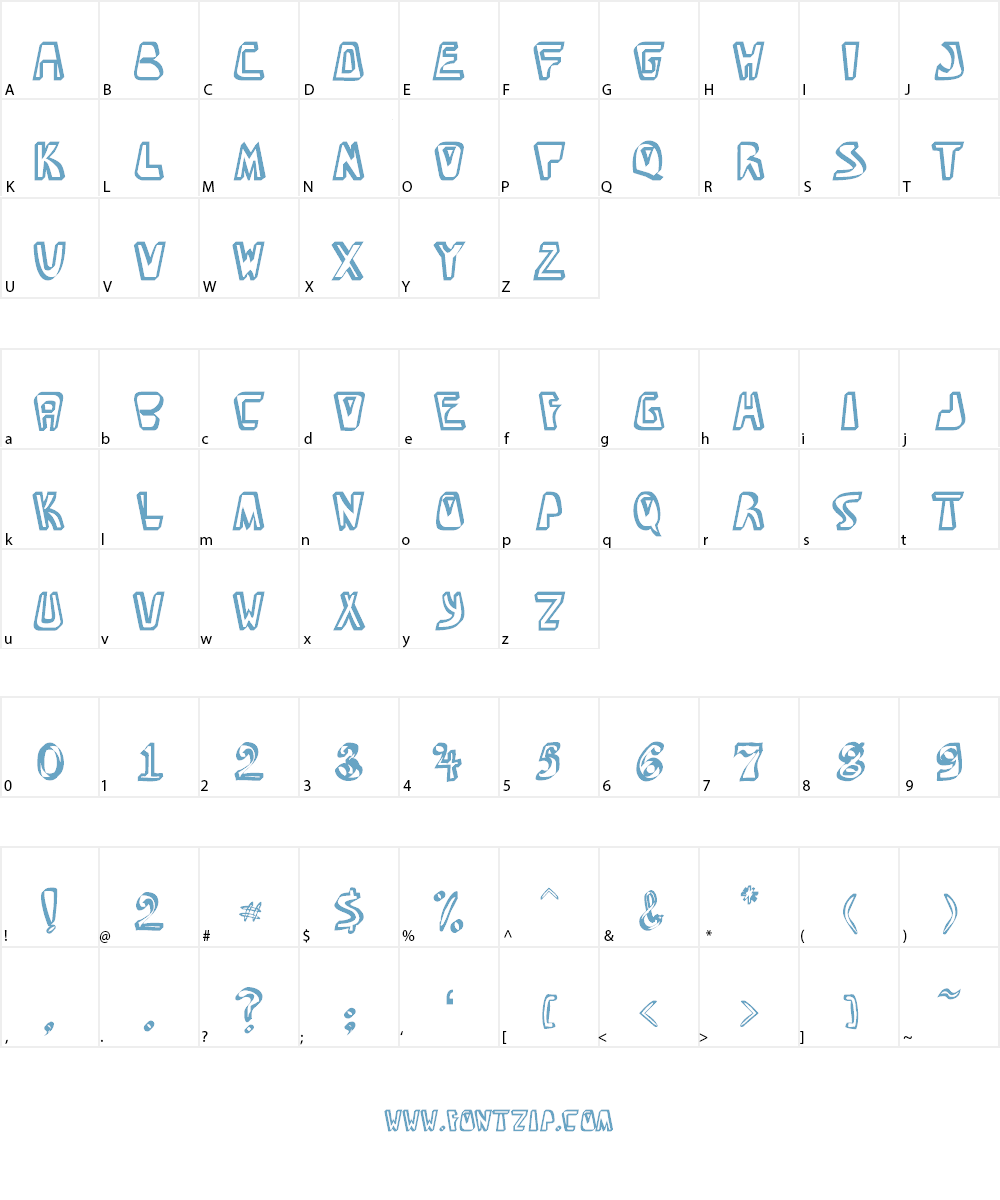
based on conflicting geometries moralities and design principles, this is an inherently evil font, for all its innocuousness. recommended for use in corporate newsletters kidnap notes, love letters or even in the shower after a long night at the computer.
lower case is variant glyphs.
began life as a kerning/spacing experiment- note the pyramidal and reverse pyramidal morphisms